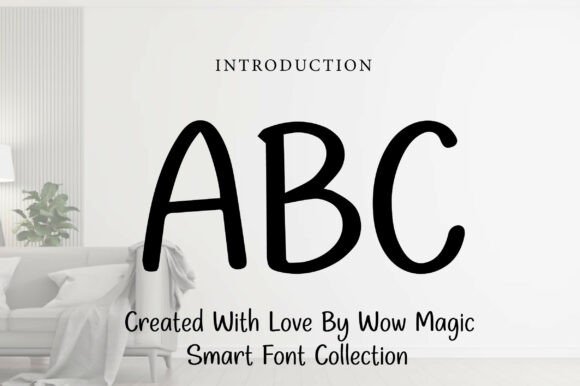
Discover the Charm of Charming Simple Font: Elevate Your Designs with a Sweet and Natural Handwritten Style
In the world of typography, few fonts manage to capture the essence of warmth and charm as effortlessly as Charming Simple. This beautiful, handwritten font is designed to bring a touch of sweetness and natural elegance to any design project. With its clean, friendly, and effortless style, Charming Simple is perfect for designers and crafters looking to add a personal and relaxed feel to their work.
The Characteristics of Charming Simple Font
Charming Simple boasts soft strokes and simple letterforms that come together to create a warm and charming look. This font’s minimalist handwritten appearance is both clean and approachable, making it an excellent choice for a wide range of design applications. From branding and quotes to invitations, greeting cards, and social media posts, Charming Simple brings a gentle, handmade touch that makes every design feel more authentic.
One of the standout features of Charming Simple is its versatility. This font is suitable for numerous design projects, including:
- Branding: Add a personal touch to your brand’s identity with a font that feels both modern and timeless.
- Quotes and Social Media Posts: Make your messages stand out with a font that is easy to read and visually appealing.
- Invitations and Greeting Cards: Bring a touch of warmth and sincerity to your invitations and cards.
- Packaging: Elevate your product packaging with a design that feels friendly and approachable.
- Wedding Designs: Add a romantic and elegant feel to your wedding-related designs.
- Lifestyle Content: Perfect for bloggers, influencers, and content creators looking for a font that resonates with their audience.
Why Choose Charming Simple Font?
There are several reasons why designers and crafters are drawn to Charming Simple:
- Authentic Handmade Feel: In an era where digital designs dominate, Charming Simple offers a refreshing, handmade aesthetic that connects with viewers on a personal level.
- Easy to Love: The font’s simplicity and warmth make it universally likable and easy to incorporate into various design projects.
- Feminine and Modern: Charming Simple strikes the perfect balance between feminine charm and modern simplicity, making it suitable for a wide range of design needs.
Charming Simple font is a beautiful addition to any designer’s toolkit. Its sweet and natural handwritten style brings a much-needed warmth and charm to digital and print designs alike. Whether you’re working on personal projects, feminine branding, or modern handmade designs, Charming Simple is sure to elevate your work and make it feel more authentic and approachable. Discover the charm of Charming Simple and let its gentle, handmade touch transform your designs today.